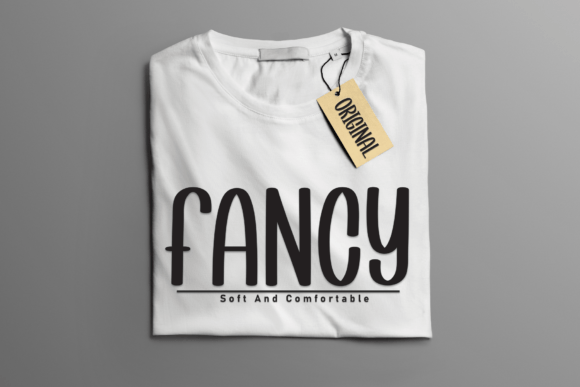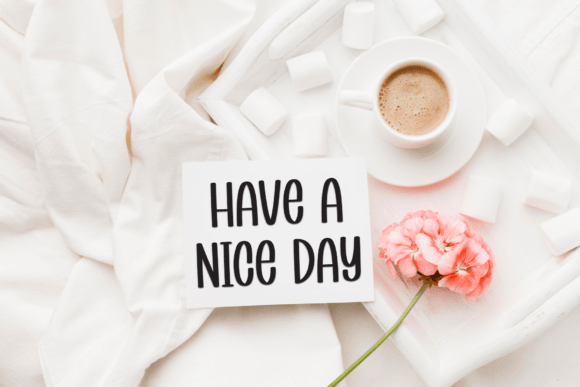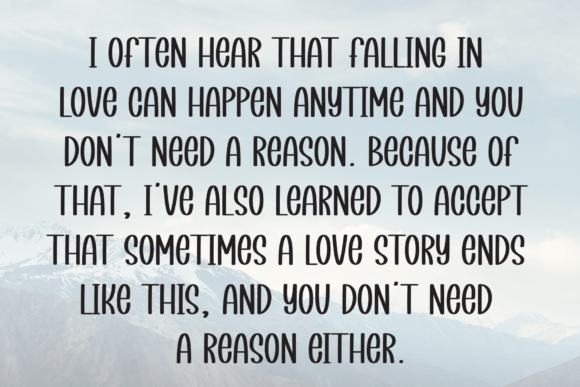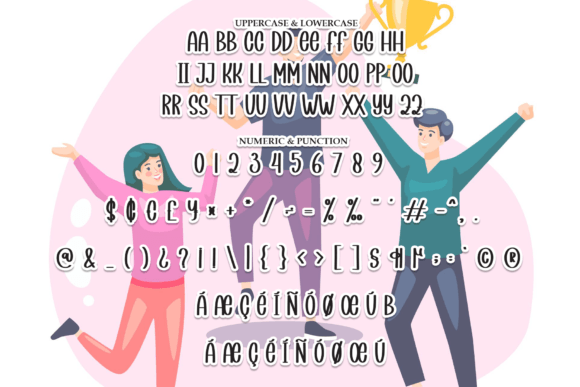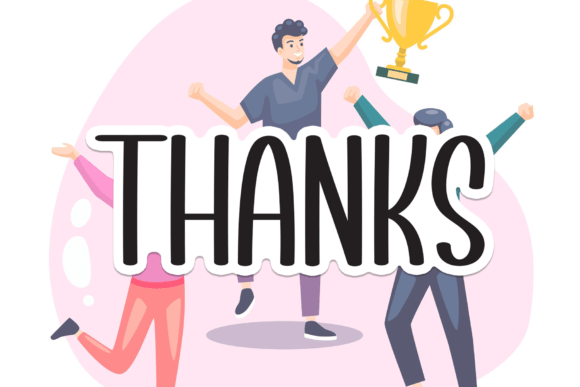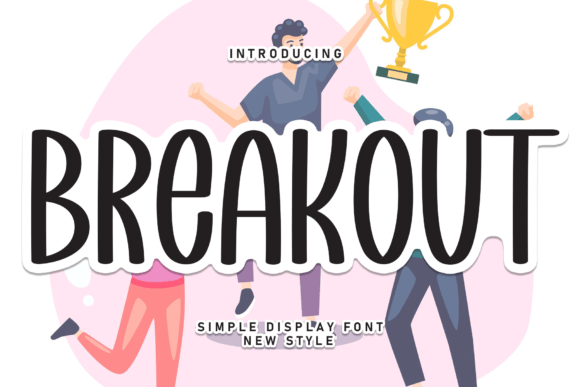
Introducing Breakout Font: The Sweet and Friendly Handwritten Display Font
Are you looking for a font that can add a touch of fun and whimsy to your designs? Look no further than Breakout Font! This sweet and friendly handwritten display font is perfect for creating eye-catching wedding invitations, cards, and other designs that need a playful twist.
What Makes Breakout Font Special?
Breakout Font is a unique and charming font that is sure to capture the attention of your audience. Its handwritten style gives it a personal and approachable feel, making it ideal for designs that require a touch of warmth and personality. Whether you’re creating wedding invitations, birthday cards, or social media graphics, Breakout Font is the perfect choice.
Characteristics of Breakout Font
So, what makes Breakout Font so special? Here are some of its key characteristics:
- Cute and Fun: Breakout Font is a playful and fun font that is sure to bring a smile to your face. Its bouncy and irregular style makes it perfect for designs that require a lighthearted touch.
- Handwritten Style: Breakout Font has a beautiful handwritten style that gives it a personal and unique feel. It’s perfect for creating designs that require a touch of warmth and personality.
- Display Font: Breakout Font is a display font, which means it’s perfect for headlines, titles, and other prominent text elements. It’s sure to make your designs stand out from the crowd.
- Versatile: Breakout Font is a versatile font that can be used for a wide range of designs, from wedding invitations to social media graphics.
Uses for Breakout Font
So, what can you use Breakout Font for? Here are some ideas to get you started:
- Wedding Invitations: Breakout Font is perfect for creating beautiful and unique wedding invitations. Its handwritten style and playful feel make it ideal for wedding designs.
- Cards: Whether you’re creating birthday cards, thank-you cards, or holiday cards, Breakout Font is a great choice. Its cute and fun style is sure to make your cards stand out.
- Social Media Graphics: Breakout Font is also perfect for creating social media graphics, such as Facebook posts, Instagram captions, and Twitter headers. Its playful style is sure to grab the attention of your followers.
- Signs and Posters: Breakout Font can also be used for creating signs and posters. Its bold and playful style makes it perfect for eye-catching displays.
Tips for Using Breakout Font
Here are some tips for using Breakout Font in your designs:
- Use it for Headlines: Breakout Font is perfect for headlines and titles. Use it to create eye-catching text elements that grab the attention of your audience.
- Pair it with Other Fonts: Breakout Font can be paired with other fonts to create a unique and interesting design. Try pairing it with a serif font for a contrasting look.
- Experiment with Colors: Breakout Font looks great in a variety of colors. Experiment with different colors to find the perfect one for your design.
- Use it for Digital and Print Designs: Breakout Font can be used for both digital and print designs. Its clear and legible style makes it perfect for a wide range of applications.
In conclusion, Breakout Font is a sweet and friendly handwritten display font that is perfect for adding a touch of fun and whimsy to your designs. Its cute and playful style makes it ideal for wedding invitations, cards, social media graphics, and other designs that require a lighthearted touch. With its versatile style and wide range of uses, Breakout Font is a great addition to any designer’s toolkit.